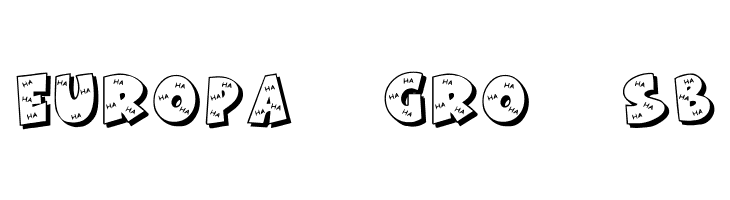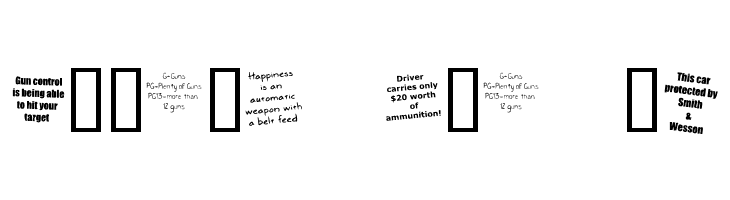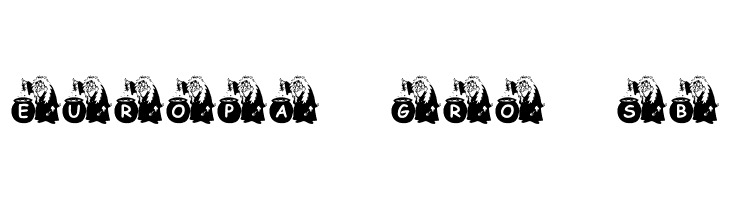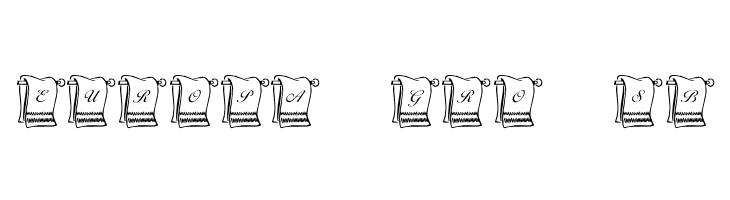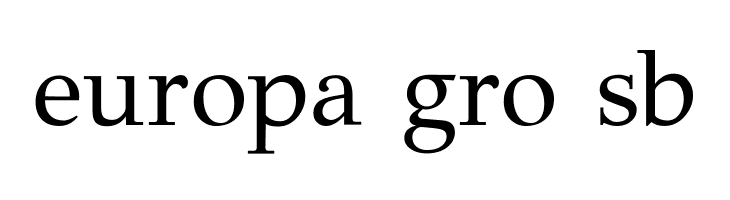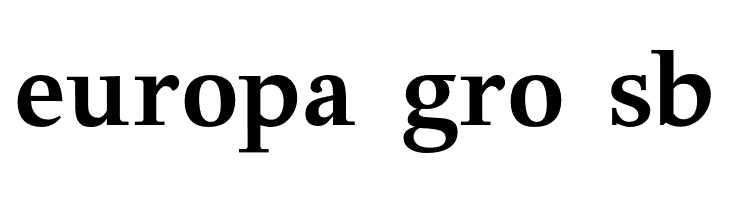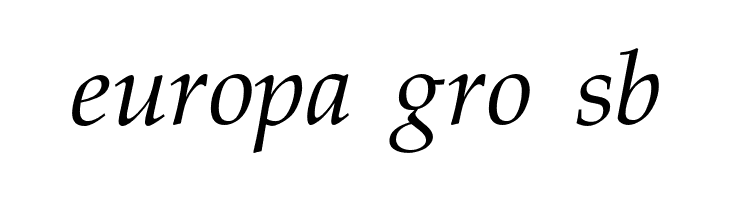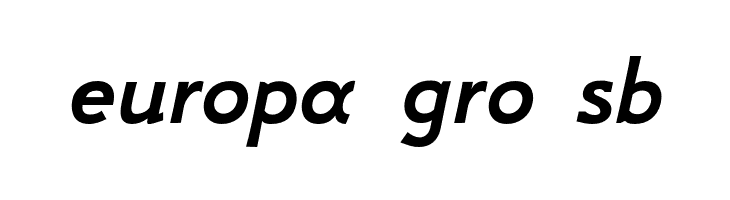
• KR Ha Ha
A playful, comic-style font with bold, chunky letters and a humorous touch.
• KR Gunz
A bold, dynamic font with thick strokes and a slight slant, perfect for impactful statements.
• KR Harvest Dings
A decorative dingbat font with harvest-themed icons.
• KR Halloween Brew
A playful Halloween-themed font with witch silhouettes and bold letters.
• KR His N Hers
A decorative font with characters on scrolls, offering a vintage and elegant style.
• GFSDidot-Regular
A classic serif typeface with high contrast and elegant serifs.
• GFSDidot-Bold
A classic serif font with high contrast and elegant design.
• GFSDidot-BoldItalic
An elegant, high-contrast serif font with italic styling.
• GFSDidot-Italic
An elegant serif font with a classic italic style and high contrast strokes.
• GFSNeohellenic-BoldItalic
A bold italic font with a modern and elegant style, perfect for impactful designs.